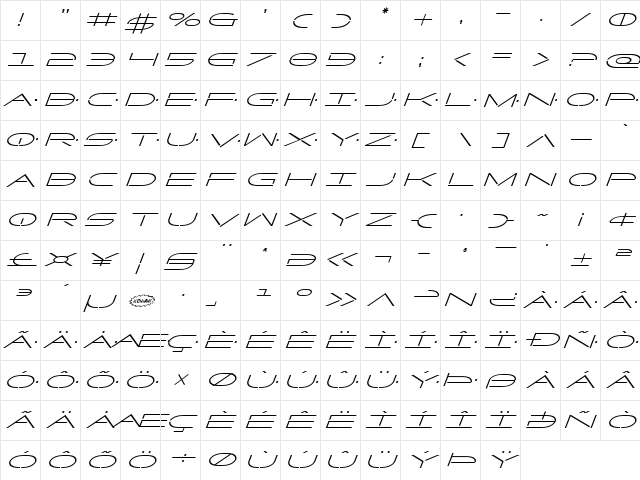
Factor Super-Italic Italic
Design Context for Factor Super-Italic Typeface
Factor Super-Italic is a composed and adaptable typeface that performs quietly and consistently across a wide range of design contexts. The slanted form adds forward momentum and visual energy.
Pro Tip: Use Factor Super-Italic for emphasis, pull quotes, and subheadings where its slanted energy can add rhythm to the layout.